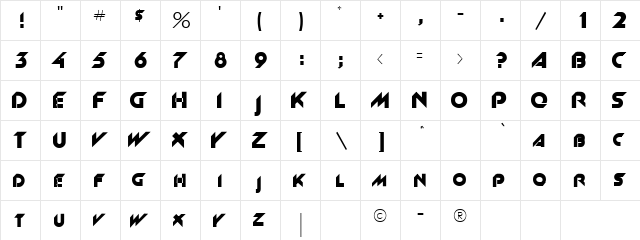
ROSSALYN Regular
Design Context for ROSSALYN Typeface
ROSSALYN is a composed and adaptable typeface that performs quietly and consistently across a wide range of design contexts.